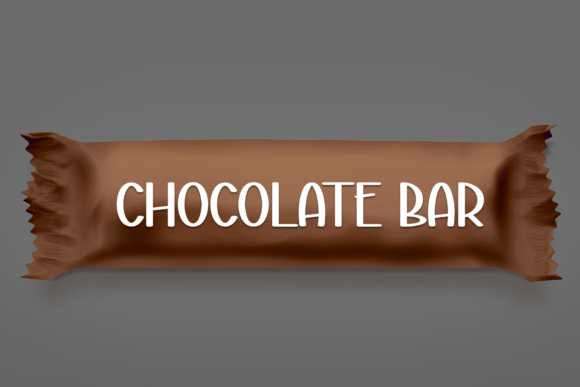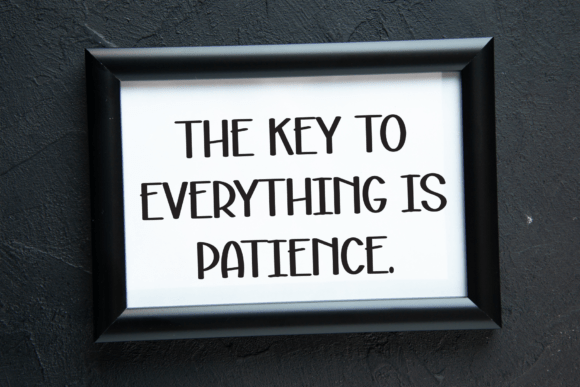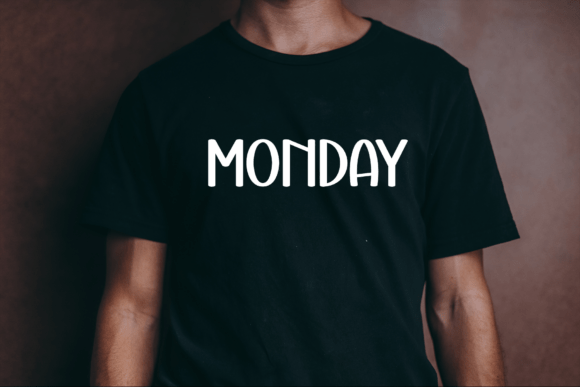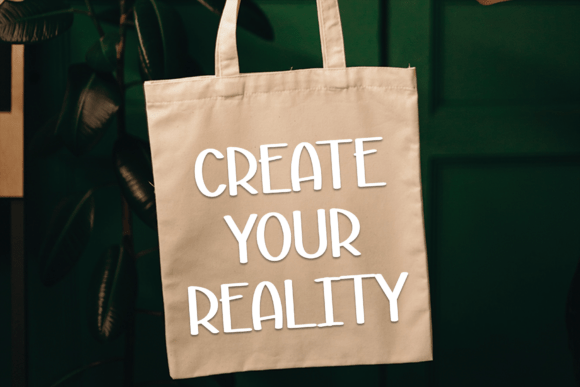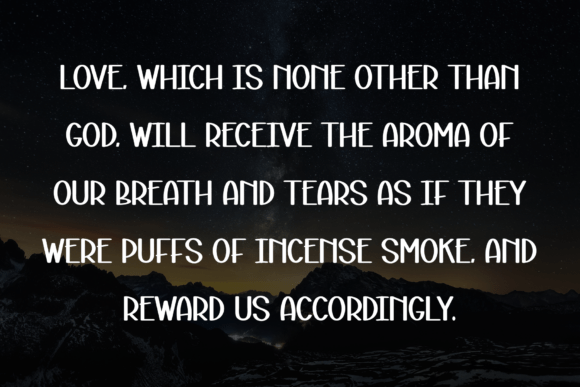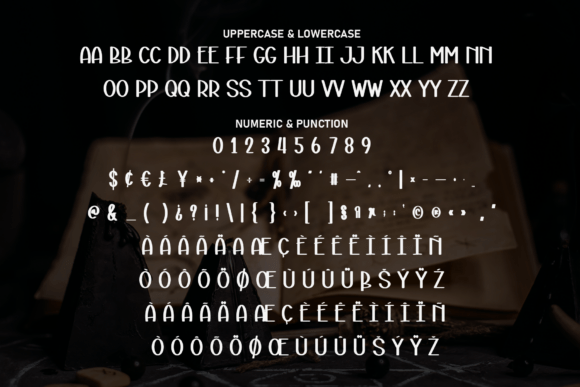
Unleash the Power of Black Magic Font: Elevate Your Designs with a Striking Modern Display Font
In the world of typography, fonts play a crucial role in conveying the tone and personality of a brand or design. For designers and crafters looking to make a bold statement, the Black Magic Font is an excellent choice. This striking modern display font is designed to turn heads with its tall, rounded letters and sleek, confident style.
What is Black Magic Font?
Black Magic is a modern display font that exudes confidence and sophistication. Its unique blend of tall, rounded letters and clean lines makes it perfect for a variety of design applications, including posters, headlines, logos, and creative branding. Whether you’re looking to create a bold statement or add a touch of elegance to your design, Black Magic Font is an excellent choice.
Key Features of Black Magic Font
- Tall, Rounded Letters: The Black Magic Font features tall, rounded letters that give it a unique and distinctive look. The rounded edges add a touch of softness to the font, making it perfect for designs that require a friendly and approachable tone.
- Sleek, Confident Style: The font’s sleek and confident style makes it perfect for designs that require a bold and assertive tone. The clean lines and minimalist aesthetic ensure that the font looks great in large and small sizes.
- Clean, Contemporary Feel: Despite its bold and striking appearance, the Black Magic Font has a clean and contemporary feel that makes it perfect for modern designs. The font’s simplicity and elegance ensure that it won’t overpower your design, but rather complement it.
Uses of Black Magic Font
The Black Magic Font is versatile and can be used in a variety of design applications, including:
- Posters: The font’s bold and striking appearance makes it perfect for posters that require a attention-grabbing headline.
- Headlines: The Black Magic Font is designed to make a statement, making it perfect for headlines that require a bold and assertive tone.
- Logos: The font’s unique and distinctive look makes it perfect for logos that require a memorable and impactful design.
- Creative Branding: The Black Magic Font can be used in a variety of creative branding applications, including business cards, brochures, and website headers.
Benefits of Using Black Magic Font
The Black Magic Font offers a range of benefits for designers and crafters, including:
- Instant Recognition: The font’s bold and striking appearance ensures that your design will grab attention and leave a lasting impression.
- Versatility: The Black Magic Font can be used in a variety of design applications, making it a great addition to any designer’s toolkit.
- Ease of Use: The font is easy to read and works well in large and small sizes, making it perfect for a variety of design applications.
Tips for Using Black Magic Font
To get the most out of the Black Magic Font, here are a few tips to keep in mind:
- Use it Sparingly: The Black Magic Font is bold and striking, so use it sparingly to avoid overwhelming your design.
- Pair it with Other Fonts: The Black Magic Font works well with other fonts, so experiment with different pairings to find the perfect combination for your design.
- Experiment with Colors: The Black Magic Font looks great in a variety of colors, so experiment with different colors to find the perfect one for your design.
In conclusion, the Black Magic Font is a striking modern display font that is perfect for designers and crafters looking to make a bold statement. Its unique blend of tall, rounded letters and sleek, confident style makes it perfect for a variety of design applications, including posters, headlines, logos, and creative branding. With its clean, contemporary feel and ease of use, the Black Magic Font is a great addition to any designer’s toolkit.